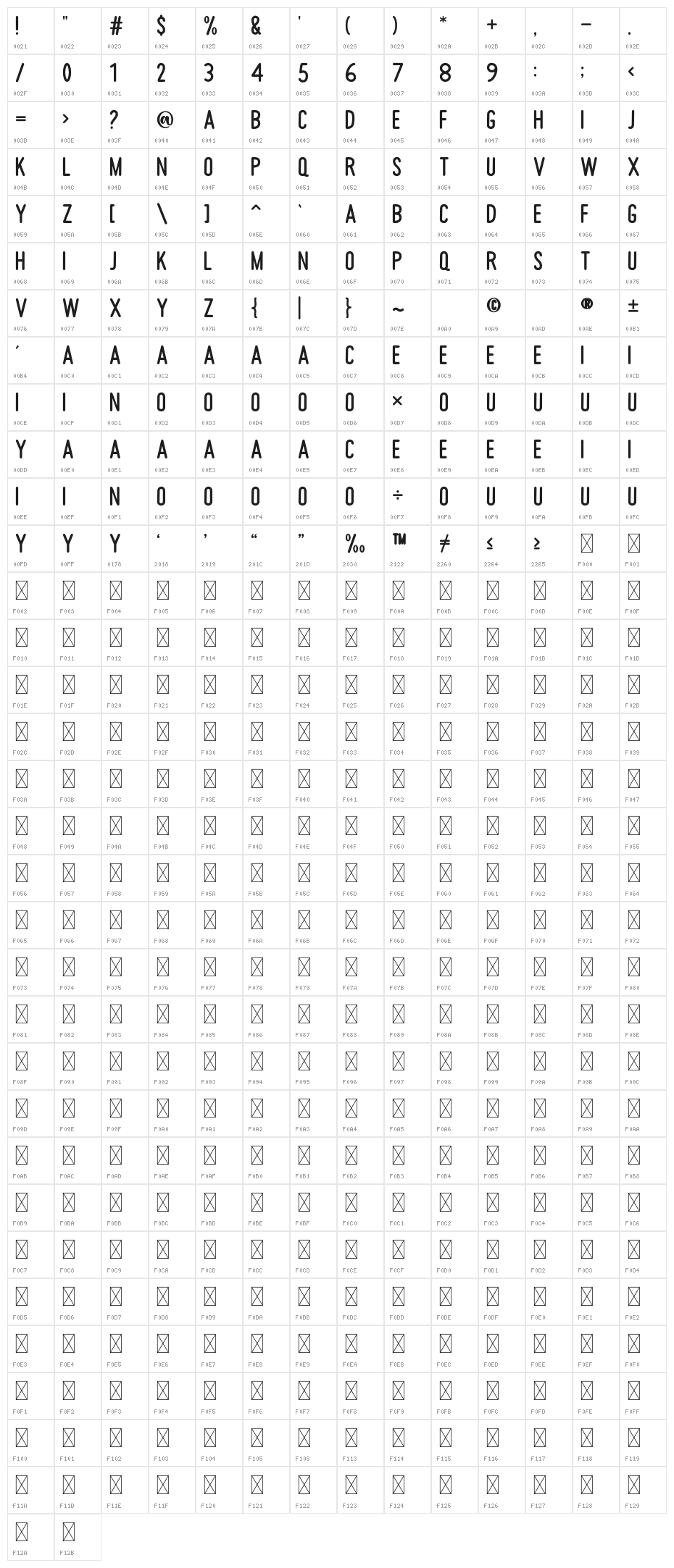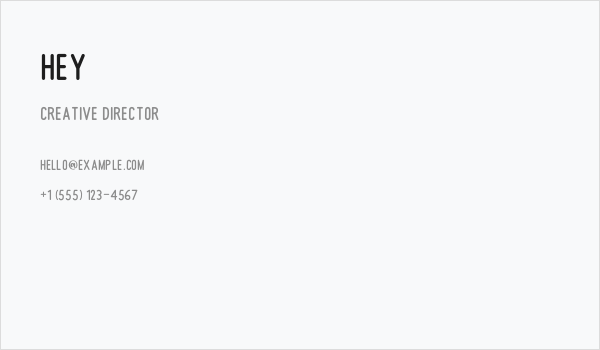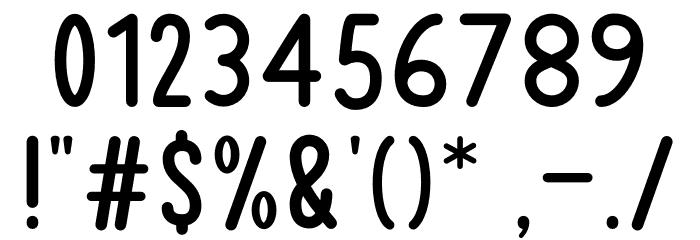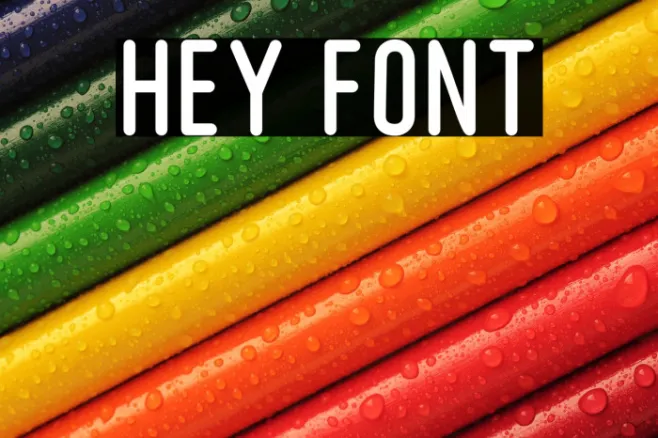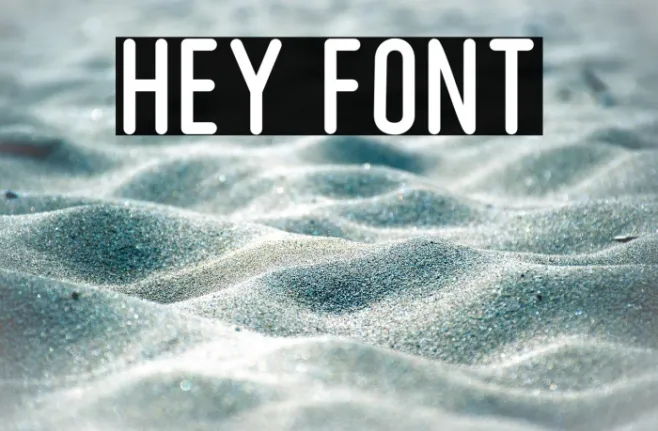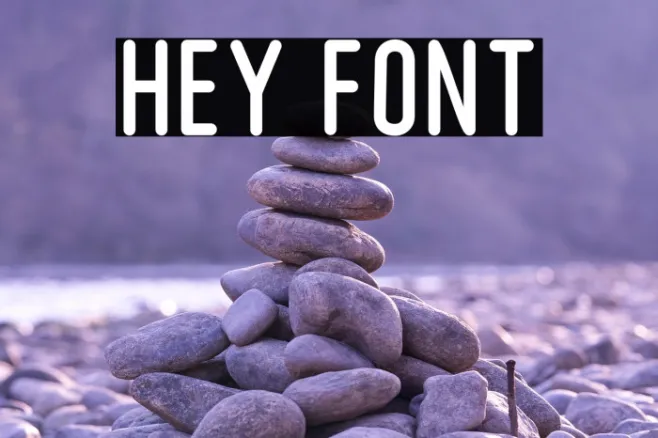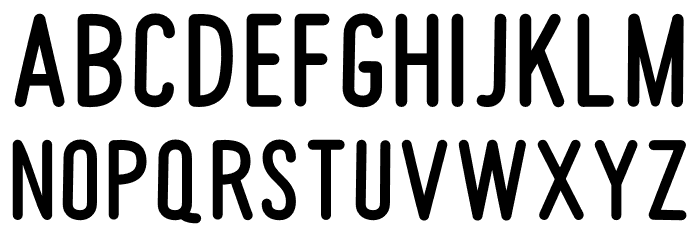
Hey Font
Hey Description
This font features a clean and modern sans-serif design with rounded edges, giving it a friendly and approachable appearance. The characters are evenly spaced, providing a balanced and harmonious look. The uppercase and lowercase letters maintain a consistent style, with slightly elongated forms that enhance readability. The numerals are clear and distinct, matching the overall aesthetic of the alphabet. Special characters are well-integrated, ensuring versatility in various applications. The font's simplicity and clarity make it suitable for a wide range of design projects.